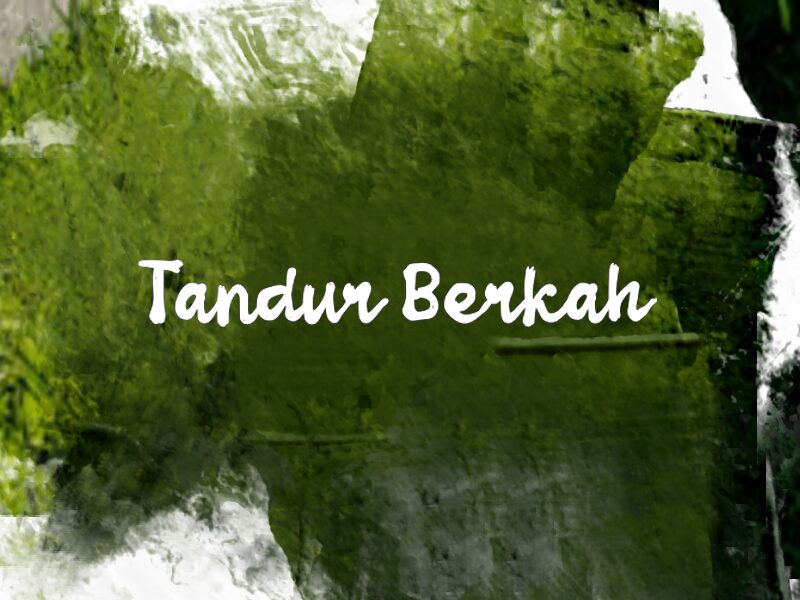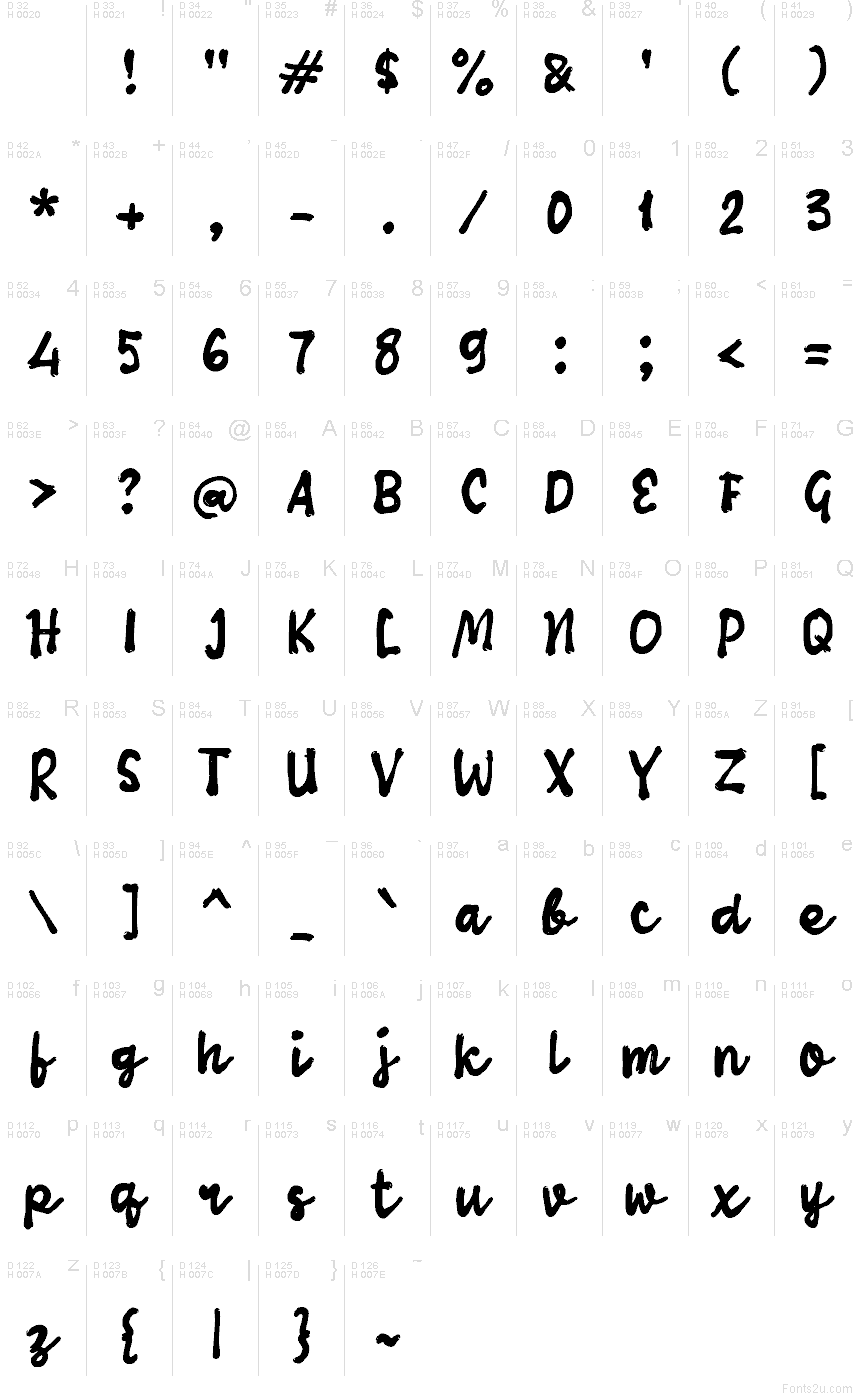
Tandur Berkah
Tandur Berkah font by wepfont.com is a free brush script typeface that captures the feel of quick, confident lettering without losing clarity. Its strokes are bold and inky, with smooth, rounded forms that stay easy to read even at smaller sizes. The letters flow together like fresh paint on paper, giving your text a warm, handmade energy instead of a stiff, digital look.
Using Tandur Berkah, you can give café menus, product labels, social media posts, bakery branding, event invitations, and packaging a cozy, honest character. This free font shines on short phrases, names, and headlines where you want personality to come through in a single glance. For balance, pair Tandur Berkah with a clean sans serif in small body text and let this brush script handle the bold, attention-grabbing words.